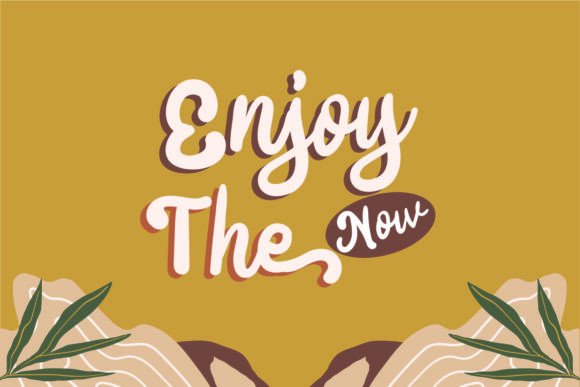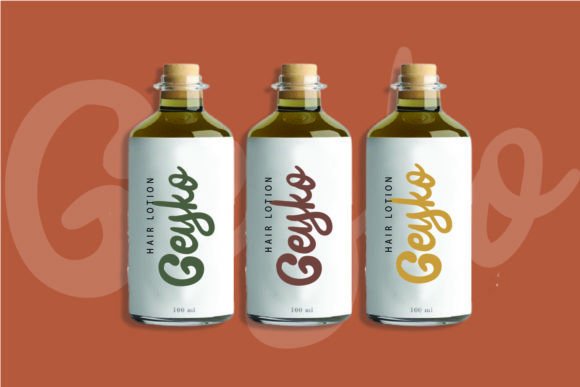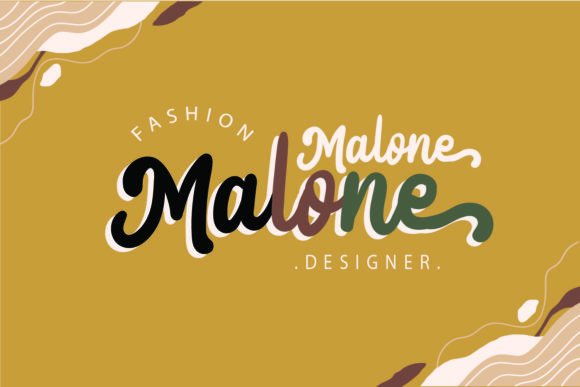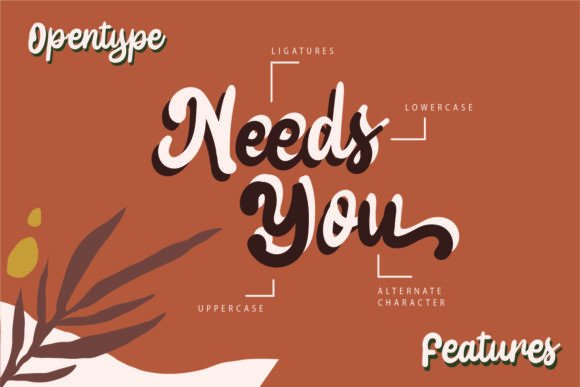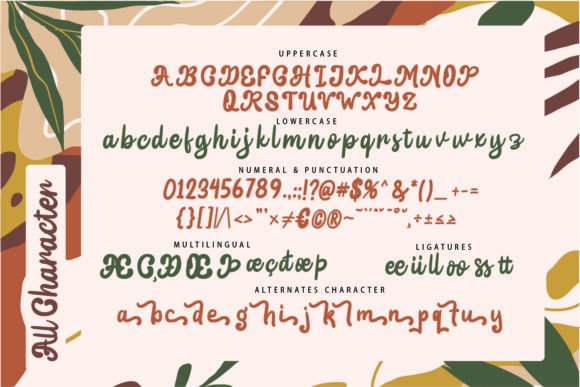
Megandia Font
A Modern Script Font with Calligraphy Style
The Megandia Font is a modern script font with a sophisticated calligraphy style that adds a touch of elegance to any project. Its smooth, flowing strokes make it perfect for a wide range of creative applications, including invitations, branding materials, business cards, quotes, posters, and more. Whether you’re working on a wedding invite or a promotional design, the Megandia Font provides a polished and stylish touch.
For invitations and greeting cards, the Megandia Font is an ideal choice. Its calligraphic style gives your invitations a refined, luxurious feel that’s perfect for weddings, birthdays, or any special event. Whether you’re creating save the dates, wedding invitations, or thank you cards, this font ensures your design feels both personal and elegant.
Great for Branding and Business Cards
The Megandia Font is also a great option for branding and business cards. Its modern, handwritten style helps establish a unique and professional brand identity. Whether you’re designing a logo, product packaging, or business stationery, this font brings luxury and sophistication to your branding materials, ensuring your business stands out with style and personality.
Ideal for Quotes and Posters
For quotes and posters, the Megandia Font brings a bold yet elegant touch to your designs. Whether you’re creating motivational quotes, art prints, or promotional posters, this font adds a dynamic element to your text while maintaining its readability. Its flowing characters and elegant design make it perfect for designs that require a stylish yet impactful presentation.
Elegant, Legible, and Timeless
Despite its calligraphic elegance, the Megandia Font remains legible and easy to use. Its clear and well-spaced characters ensure that your text is easy to read, even in small sizes or for longer passages. Whether you’re creating headlines, captions, or full body text, this font offers a great balance of beauty and clarity, making it perfect for a wide range of design projects.
Add Elegance and Style to Your Designs with Megandia Font
If you’re looking for a modern, elegant, and sophisticated handwritten font to enhance your designs, the Megandia Font is the perfect choice. Whether you’re working on wedding invitations, branding, business cards, or posters, this font brings a calligraphic, timeless touch to your projects. Let the Megandia Font elevate your designs and create memorable, elegant projects that leave a lasting impression.